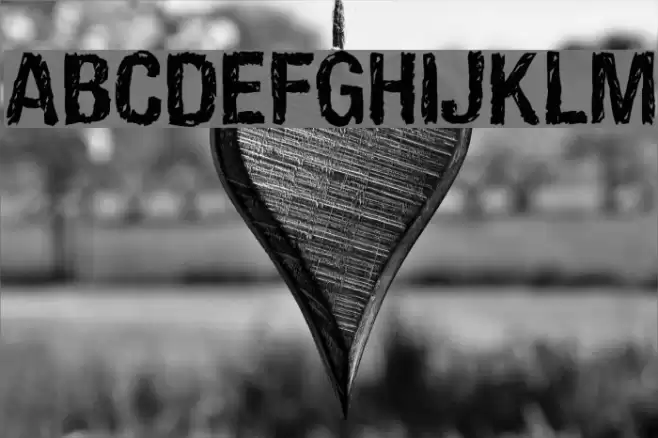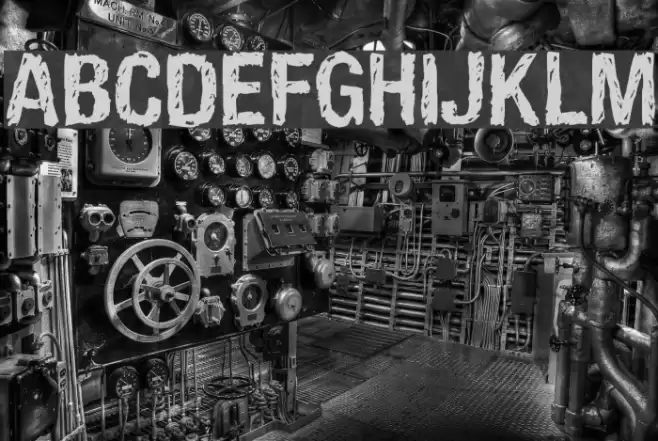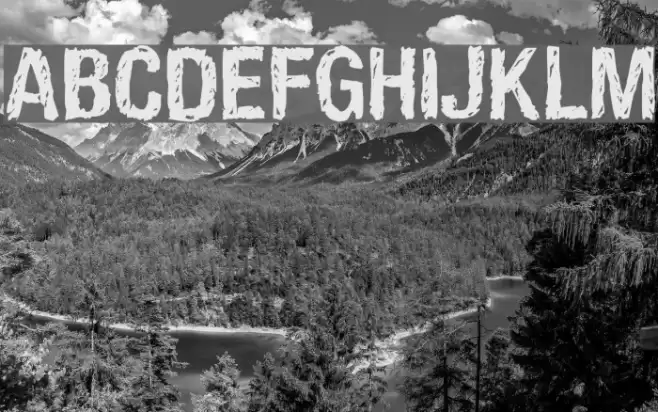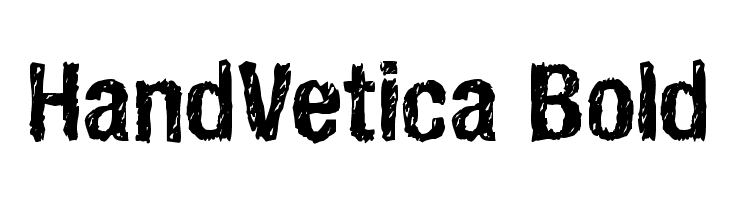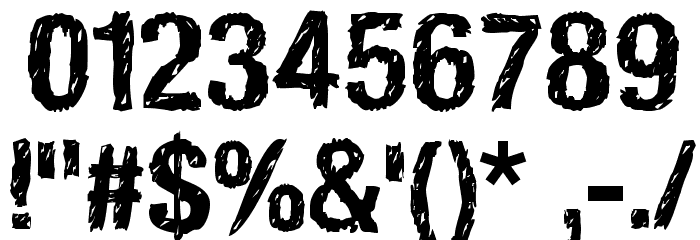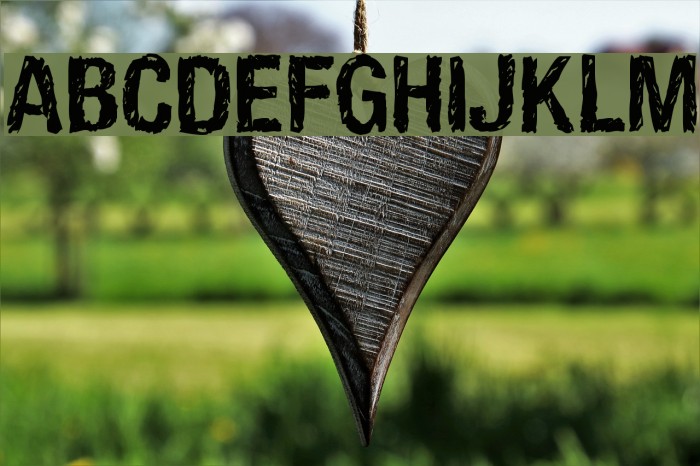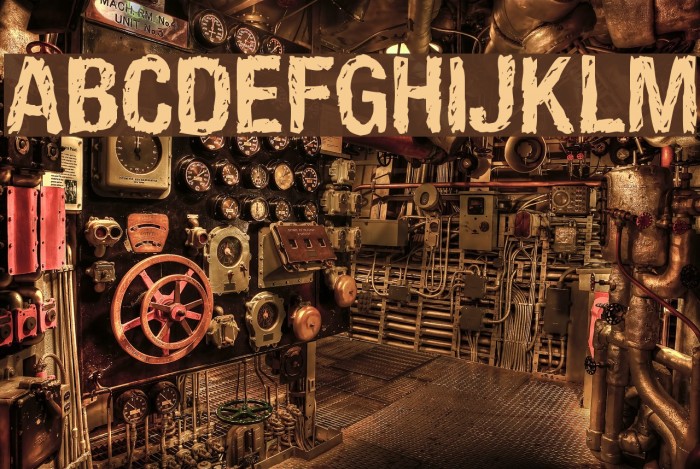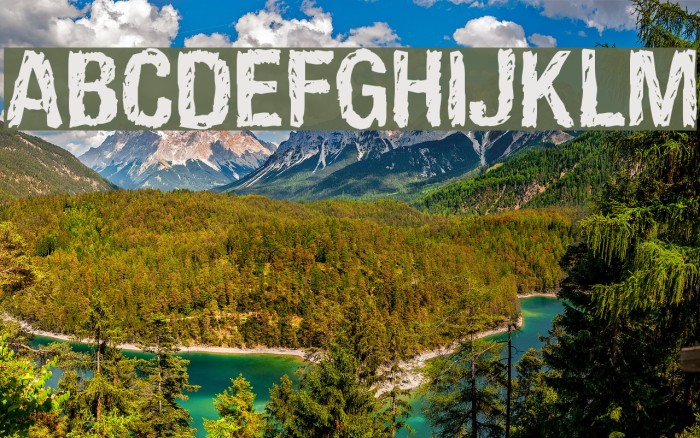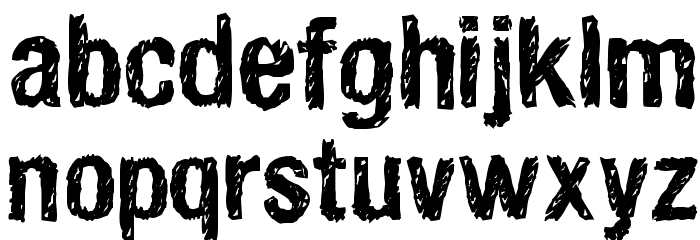
HandVetica Bold Font
HandVetica Bold Description
This font exhibits a bold, textured style with a hand-drawn appearance, characterized by rough, uneven edges that give it a dynamic and energetic feel. The uppercase and lowercase letters maintain a consistent height, while the numbers and special characters are designed to match the overall aesthetic. The font's irregular strokes and distressed look make it ideal for projects that require a raw, artistic touch. Its boldness ensures high visibility, making it suitable for attention-grabbing headlines or creative designs. The unique style of this font can add a personal, handcrafted element to any project.
A bold, textured font with a hand-drawn, distressed appearance from Handwritten fonts.
- Proposed Projects: Ideal for posters, album covers, artistic branding, and creative digital designs.
- Use Case: Headlines, Logos, Artistic projects